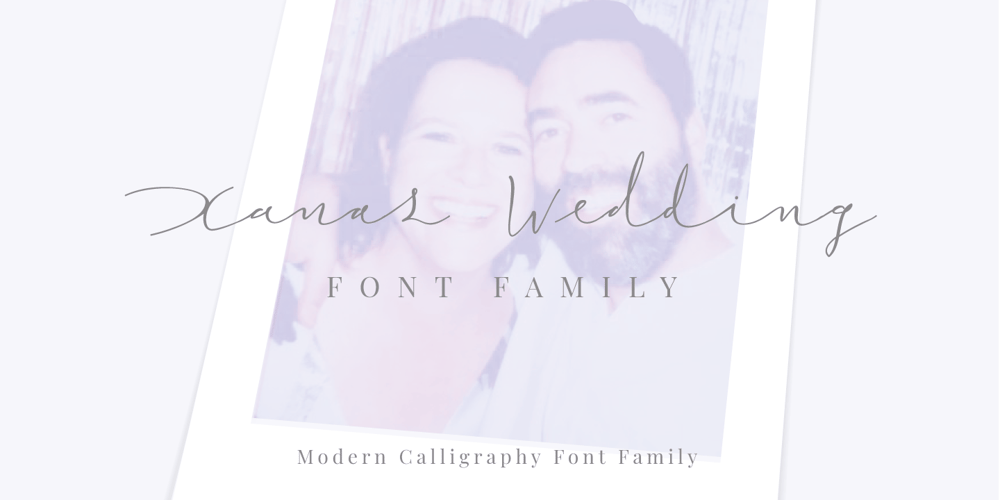
Xanas Wedding Font Family was designed by Pedro Teixeira and published by Pedro Teixeira. Xanas Wedding contains 22 styles and family package options. This font family has derived from a lettering creation for my wedding stationery. One of the most significant momentos for me and my wife Xana (hence the font name – Xanas Wedding). I hope this typography can give a touch of informal elegance and discreet beauty to your projects. There can be multiple applications, since this font is flexible enough to appear as a custom text or a variable, organic, handwritten work. Designed by Pedro Alexandre Teixeira